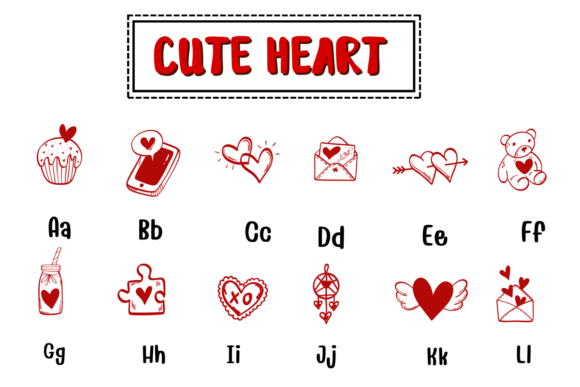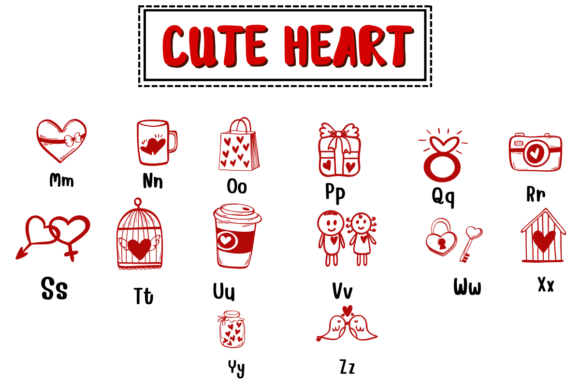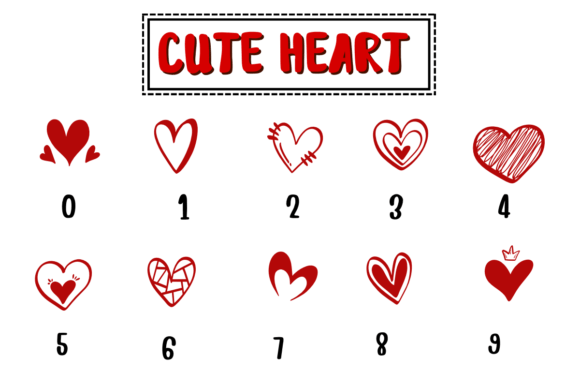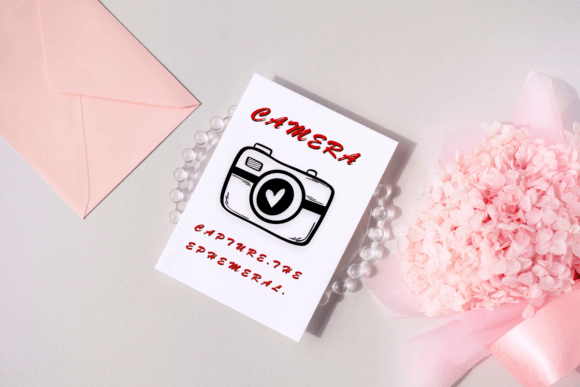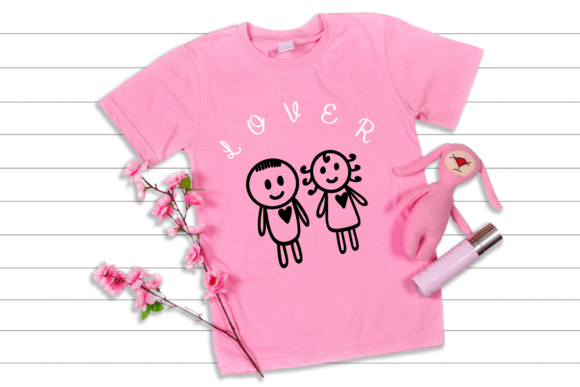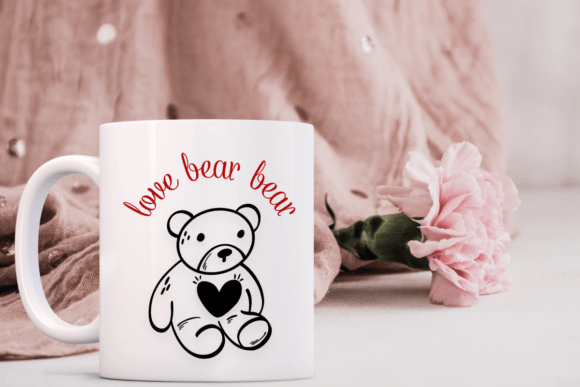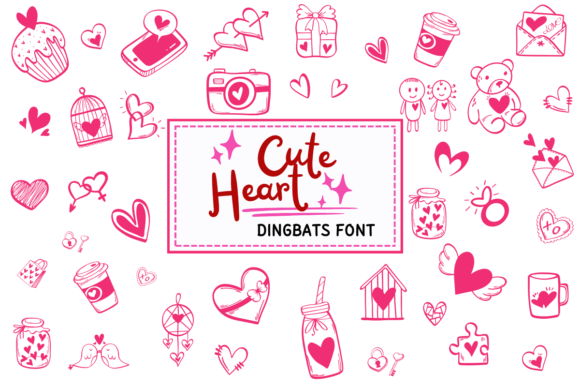
Cute Heart Font: Add a Touch of Whimsy to Your Creative Projects
Are you looking for a font that can add a dash of personality to your creative projects? Look no further than the Cute Heart font, a charming dingbats font with a sketch style theme. This adorable font is perfect for designers, crafters, and DIY enthusiasts who want to infuse their work with a touch of whimsy and romance.
What is Cute Heart Font?
Cute Heart is a unique dingbats font that features a sketch style theme, complete with hand-drawn hearts, arrows, and other decorative elements. This font is designed to add a personal touch to your creative projects, making it perfect for wedding invitations, DIY crafts, decorations, logos, and many other imaginative ideas.
Features of Cute Heart Font
- Sketch style theme: The Cute Heart font features a charming sketch style theme that adds a touch of hand-drawn charm to your projects.
- Dingbats font: This font is a dingbats font, which means it’s made up of decorative symbols, such as hearts, arrows, and stars, rather than traditional letters and numbers.
- Hand-drawn elements: The Cute Heart font features hand-drawn elements, giving it a personal and unique feel.
- Perfect for creative projects: This font is ideal for a wide range of creative projects, including wedding invitations, DIY crafts, decorations, logos, and more.
Uses for Cute Heart Font
The Cute Heart font is incredibly versatile and can be used for a wide range of creative projects, including:
- Wedding invitations: Add a touch of romance and whimsy to your wedding invitations with the Cute Heart font.
- DIY crafts: Use the Cute Heart font to add a personal touch to your DIY crafts, such as handmade cards, gift tags, and decorations.
- Decorations: The Cute Heart font is perfect for creating decorative elements, such as garlands, banners, and signs.
- Logos: Use the Cute Heart font to create a unique and memorable logo for your business or brand.
- Social media graphics: Add a touch of personality to your social media graphics, such as Instagram posts and Facebook graphics, with the Cute Heart font.
Tips for Using Cute Heart Font
Here are a few tips for using the Cute Heart font in your creative projects:
- Mix and match: Experiment with mixing and matching the Cute Heart font with other fonts to create a unique and eye-catching look.
- Use it sparingly: Use the Cute Heart font sparingly to add a touch of personality to your projects, rather than overwhelming them with too many decorative elements.
- Color it up: Experiment with different colors to add an extra touch of personality to your projects.
The Cute Heart font is a charming and versatile font that’s perfect for designers, crafters, and DIY enthusiasts who want to add a touch of whimsy and romance to their creative projects. With its sketch style theme, hand-drawn elements, and dingbats design, this font is sure to inspire your creativity and help you create unique and memorable projects. So why not give it a try and see what amazing creations you can come up with?